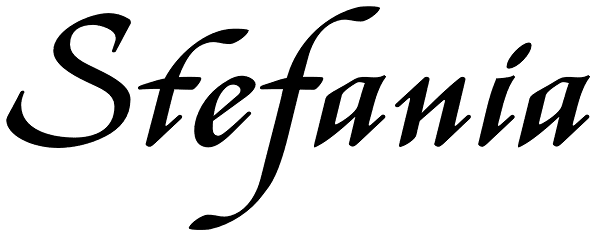
Stefania
Stefania is an elegant chancery script, designed with wedding invitations specifically in mind. A contemporary take on chancery scripts, Stefania retains a traditional calligraphic feel. Its features include a more pronounced slant for an elegant...